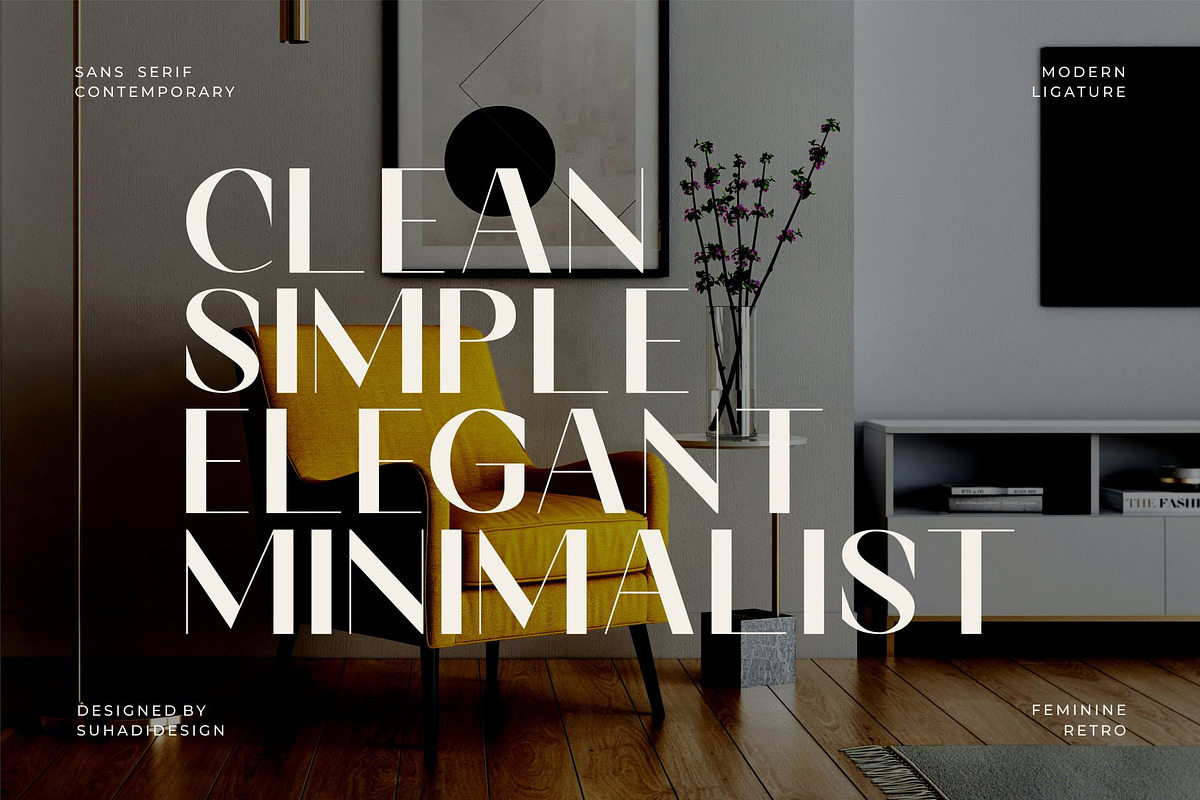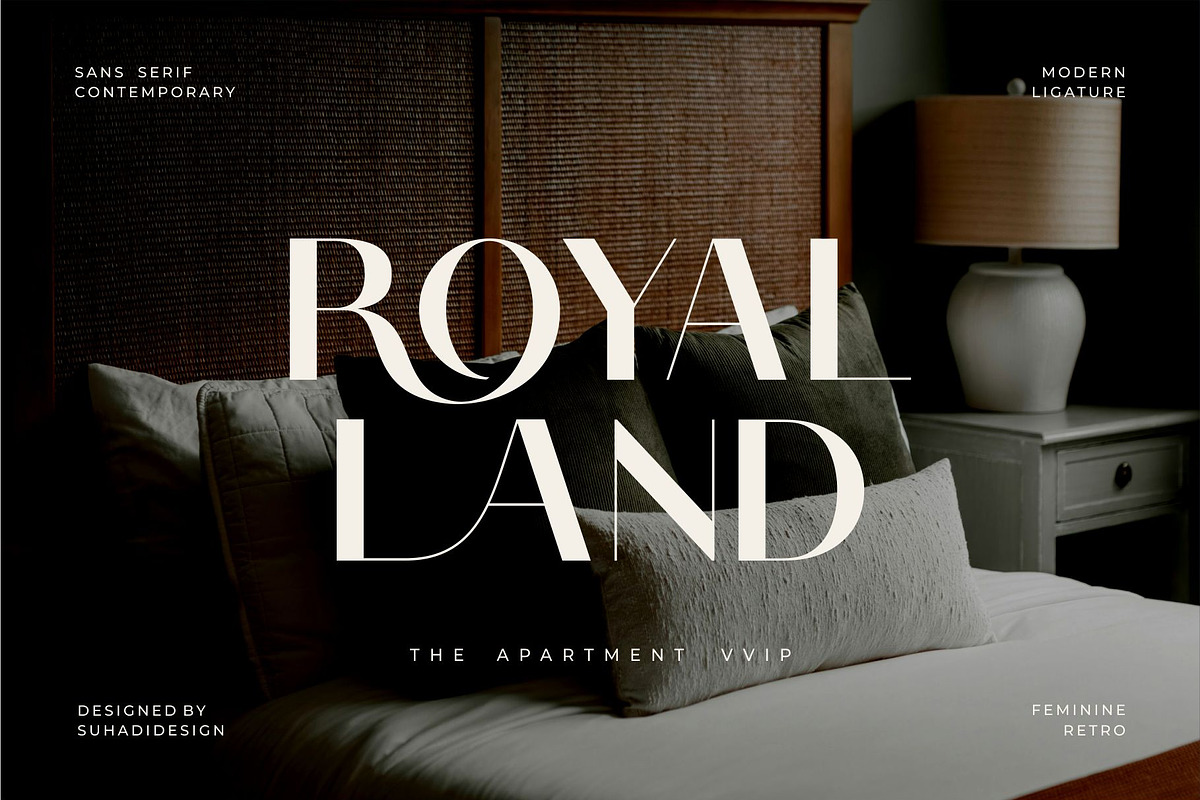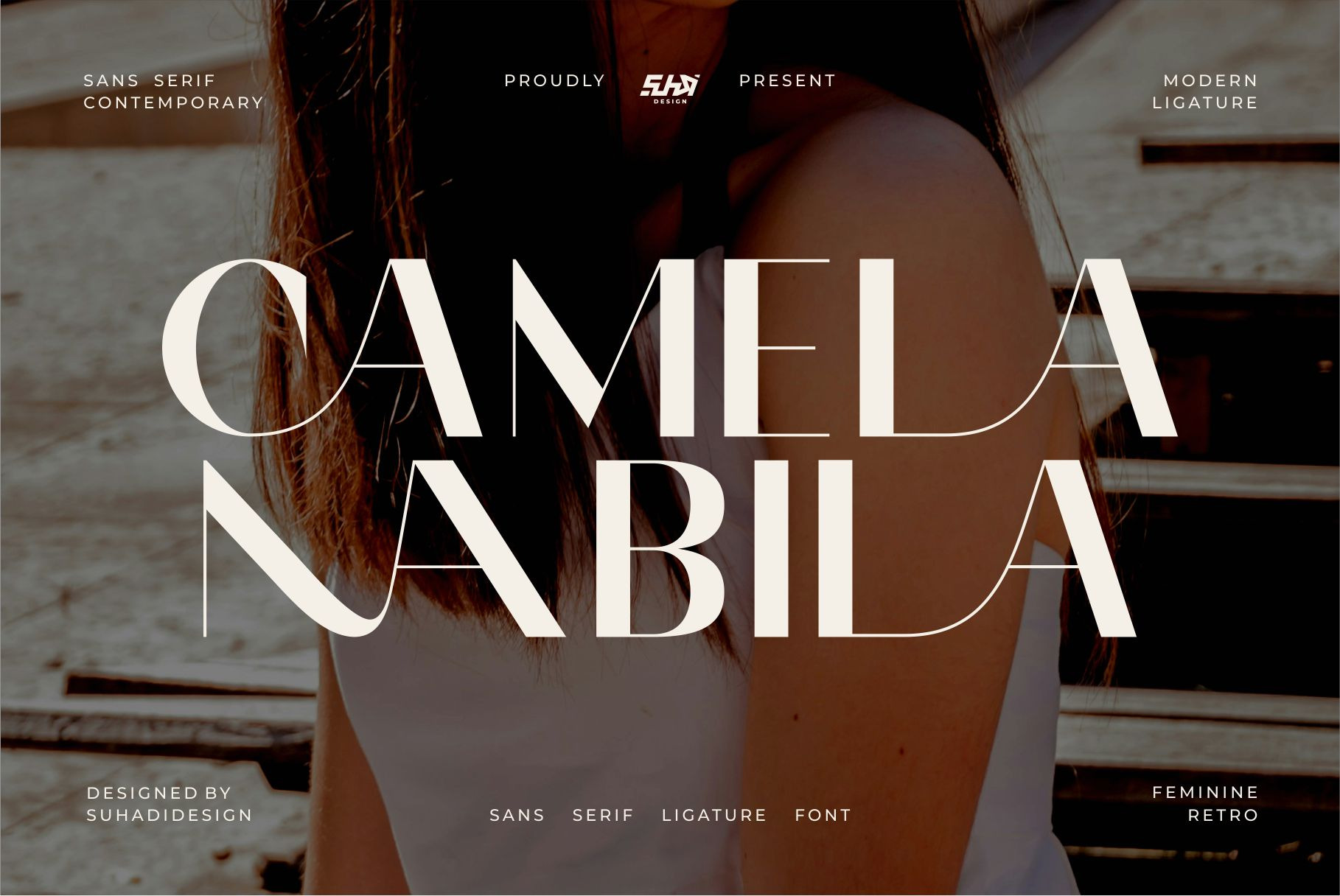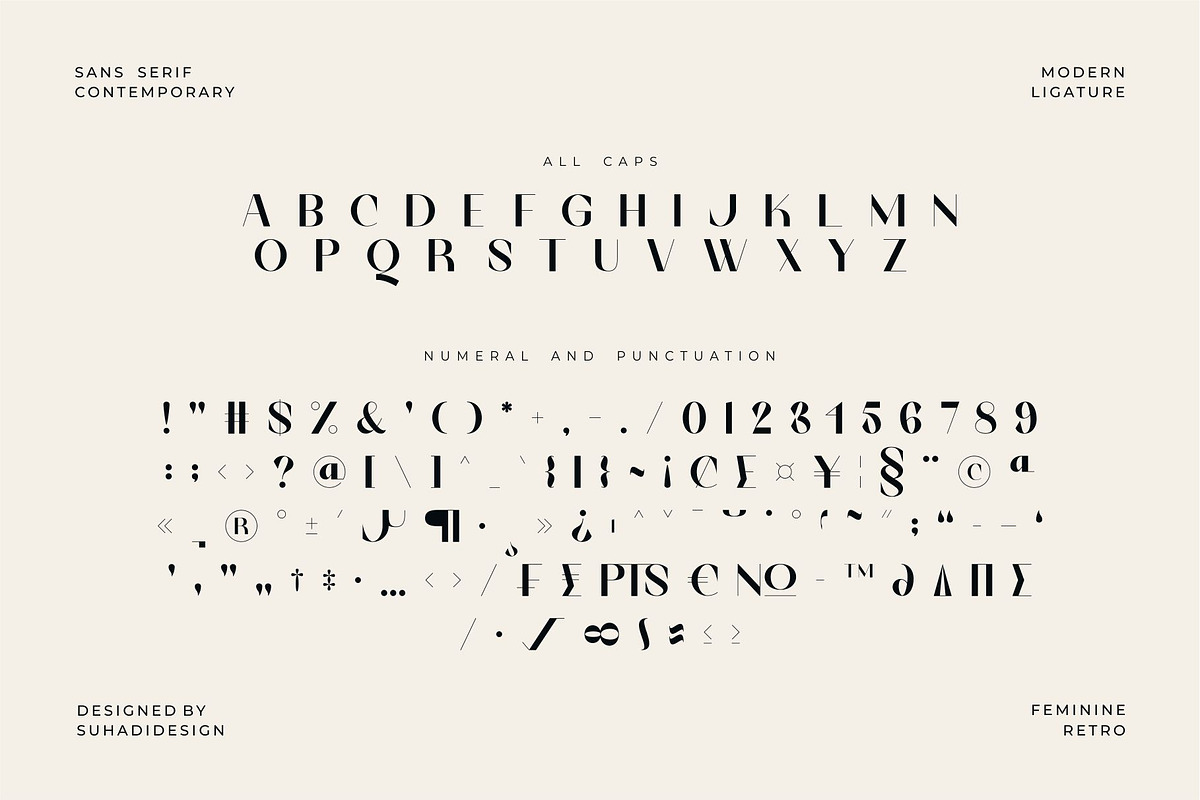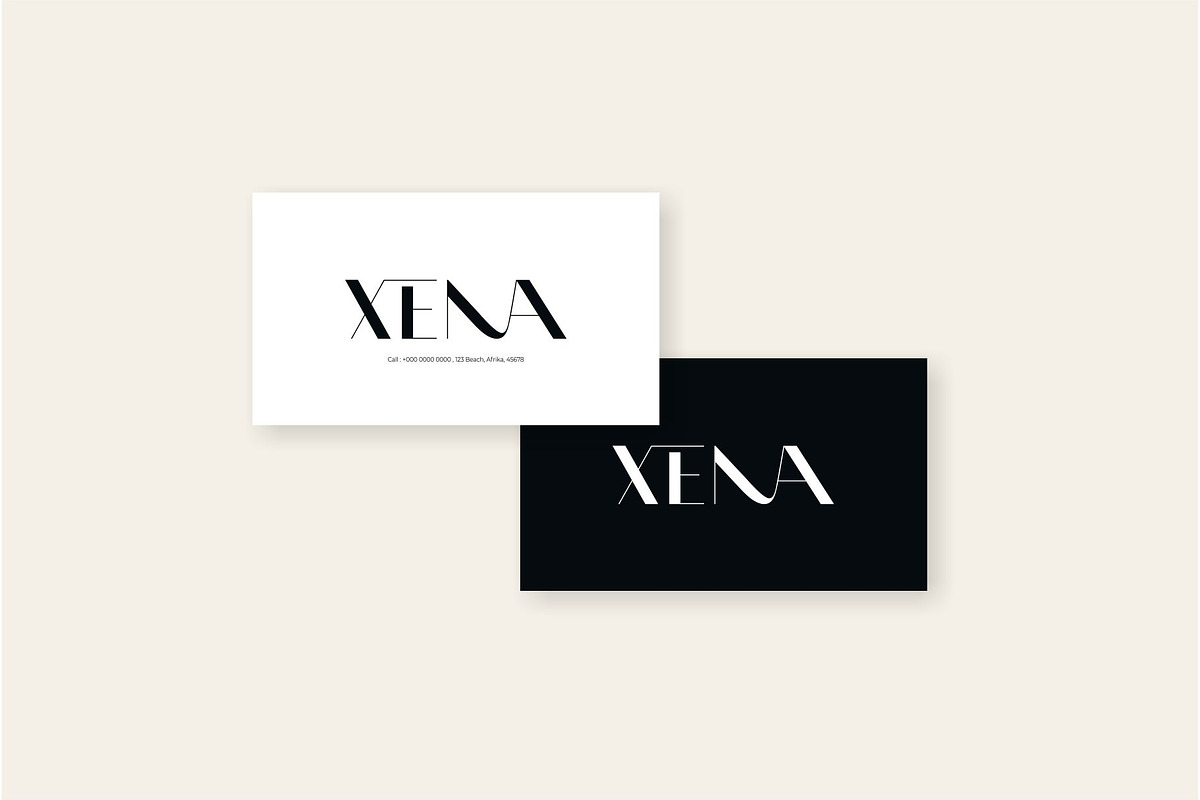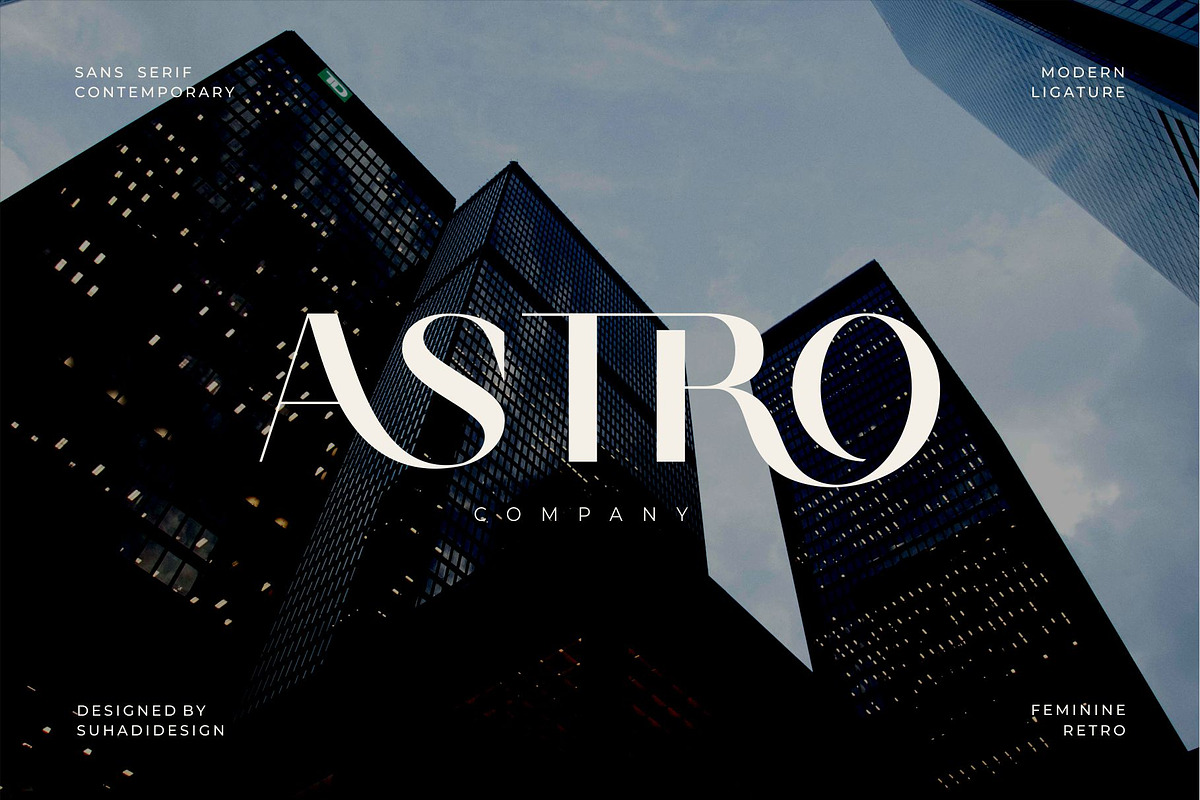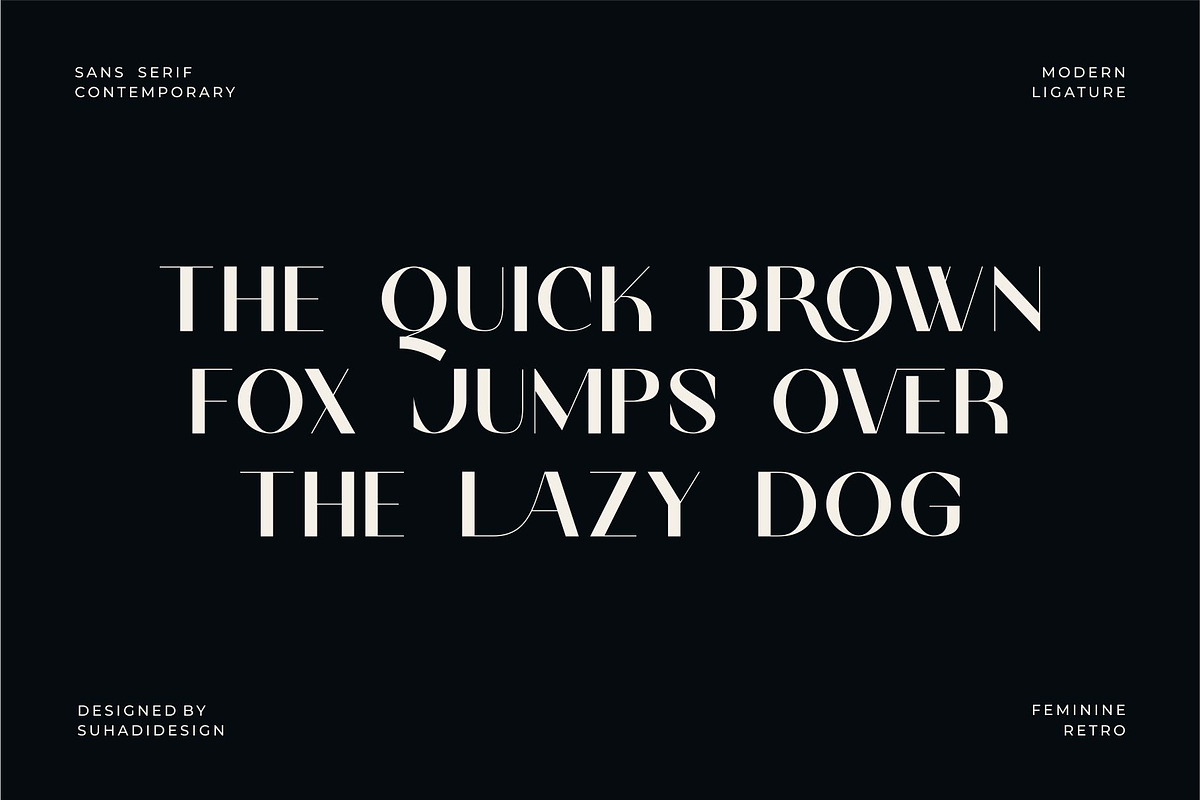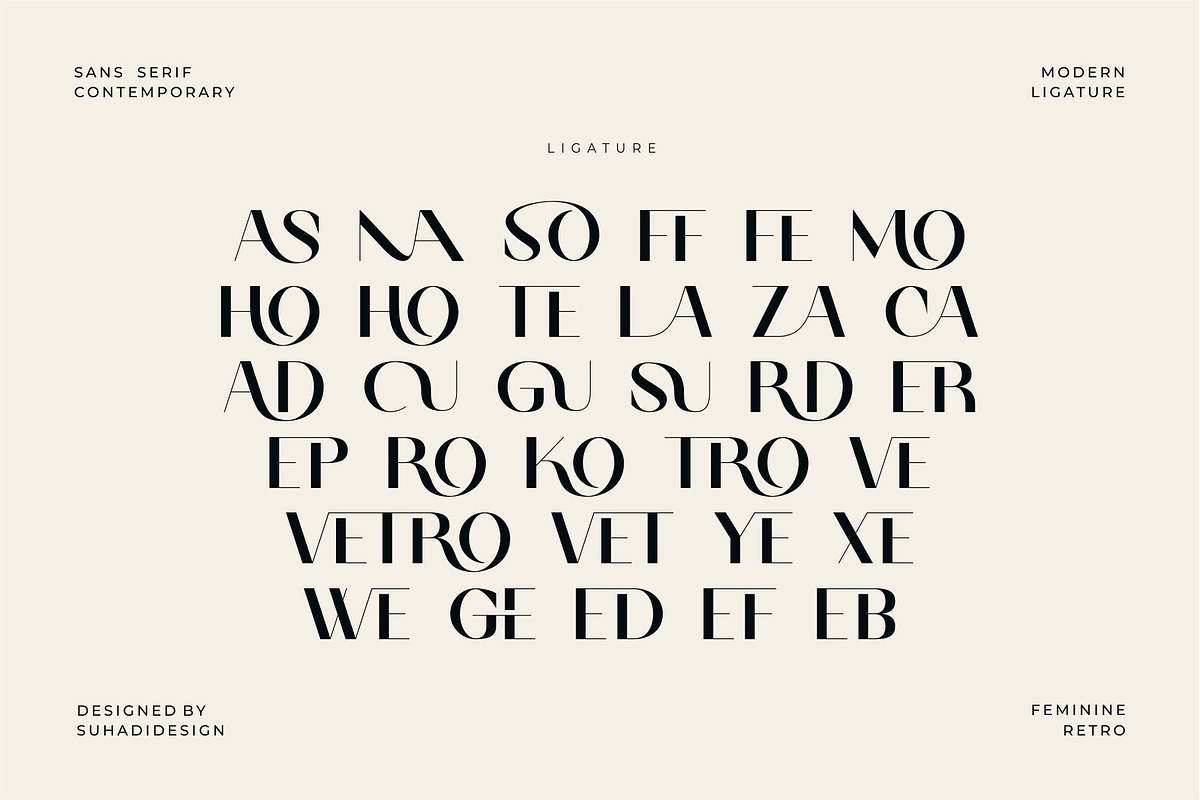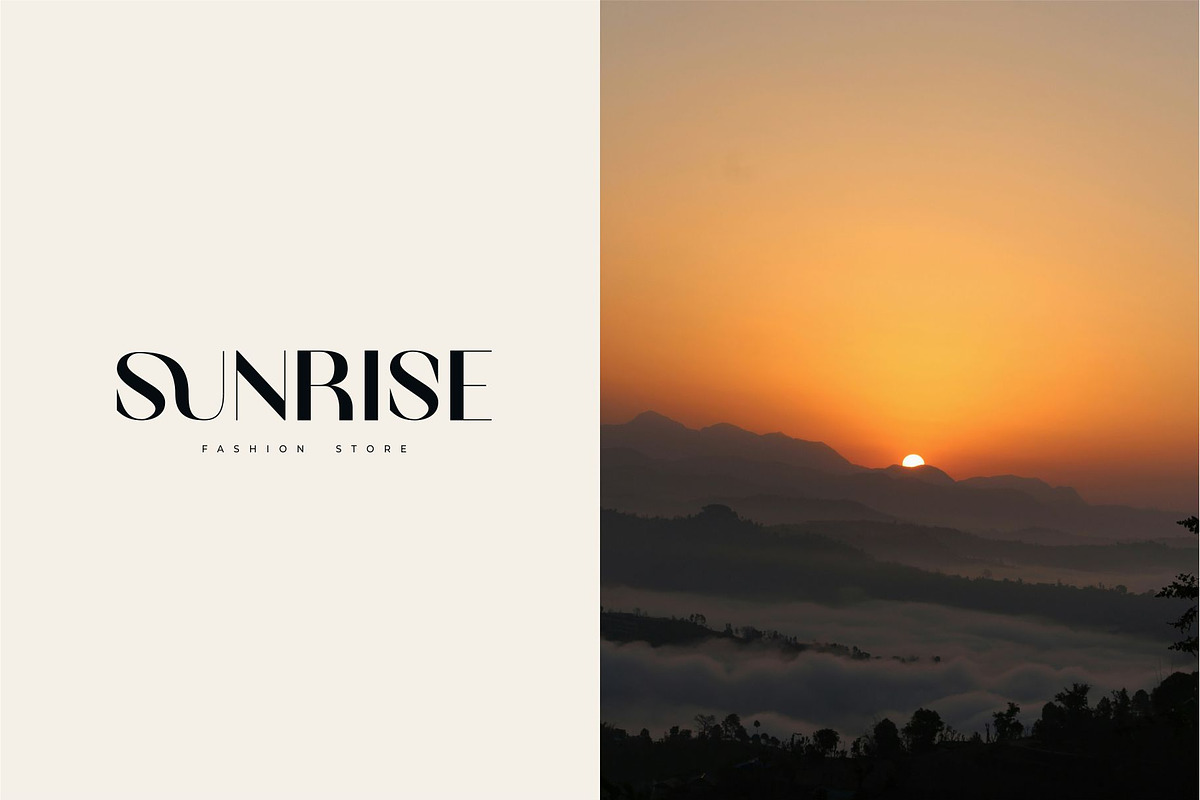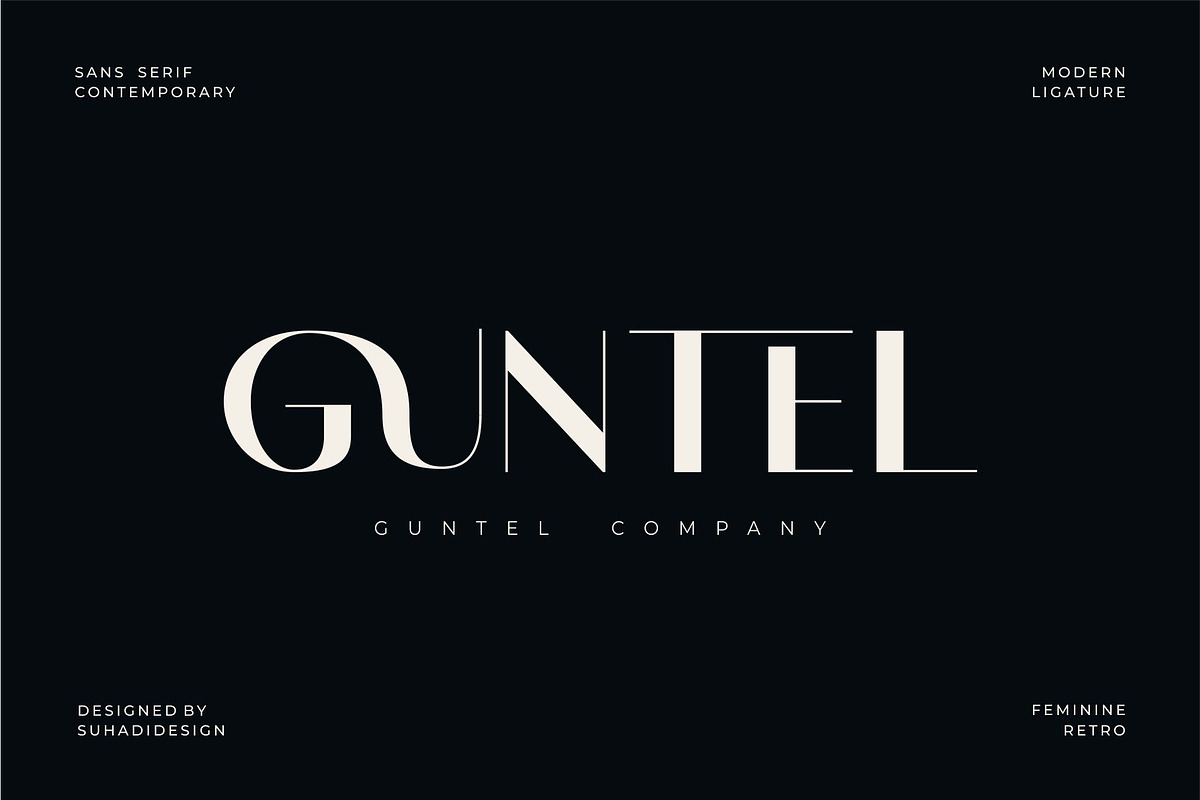
Camela Nabila - Modern Ligature Font
Hello, ladies and gentlemen! The latest stylish modern font is here, and it's highly sought after by both women and men. This is the Camela Nabila font. Camela Nabila is a modern and stylish sans serif font. With its modern design and ligature feature, this font has become a favorite on the market. We've kept this font looking elegant, classy, and stylish. Camela Nabila is the perfect choice for cosmetics, beauty, brands, logos, trademarks, magazines, designs, books, publications, branding, brand names, business cards, social media, classy designs, newspapers, branding, beauty, and other projects. Camela Nabila is here to elevate the quality of your designs.
• All Capital Letters • Ligatures • Multilingual Support • Numbers • Punctuation